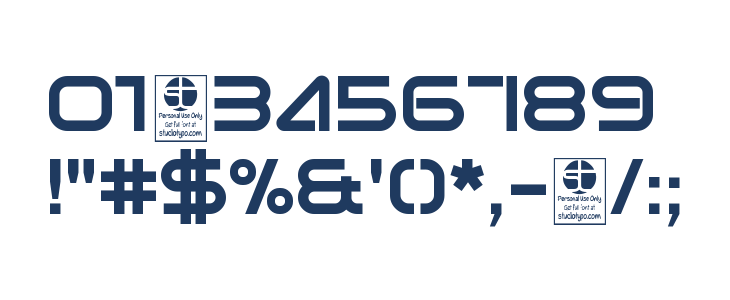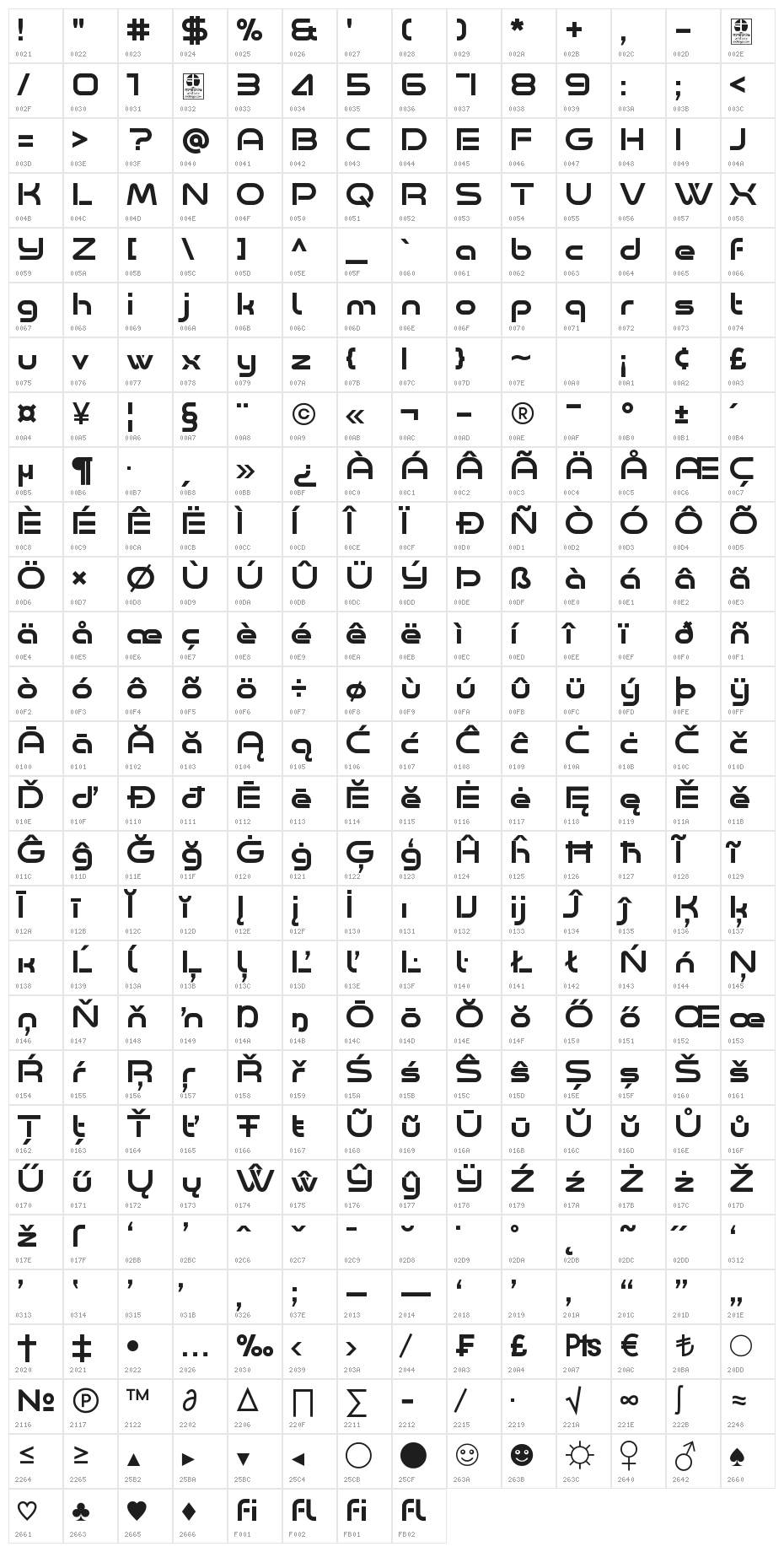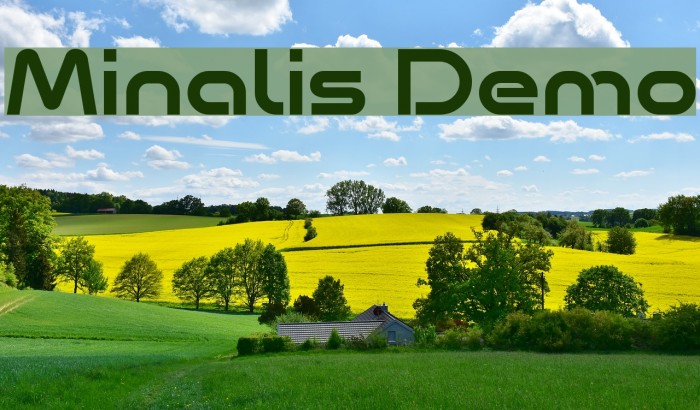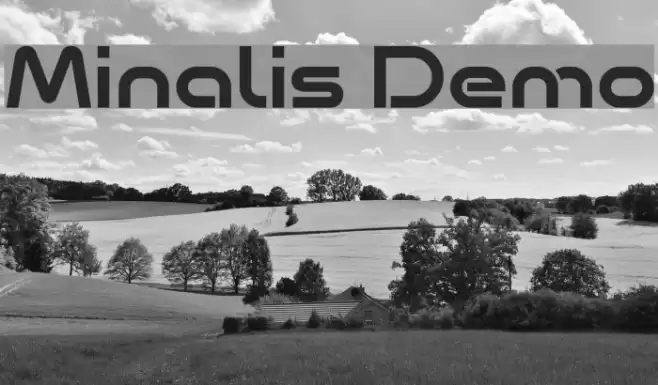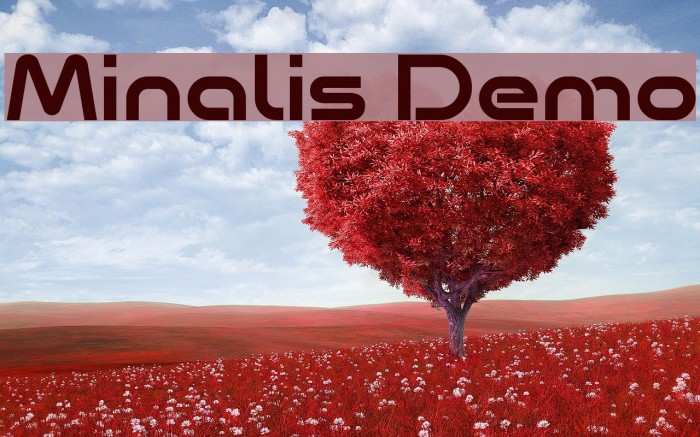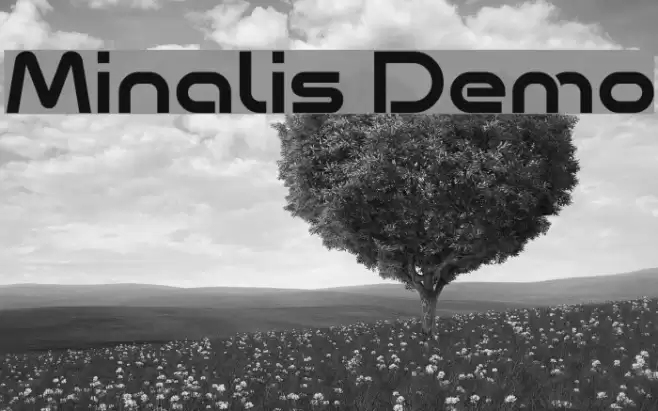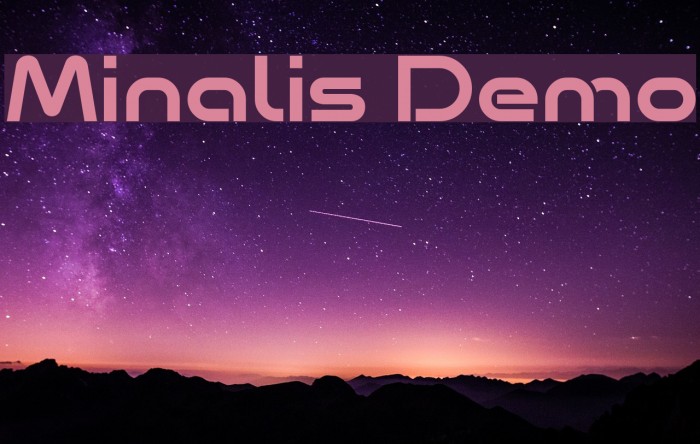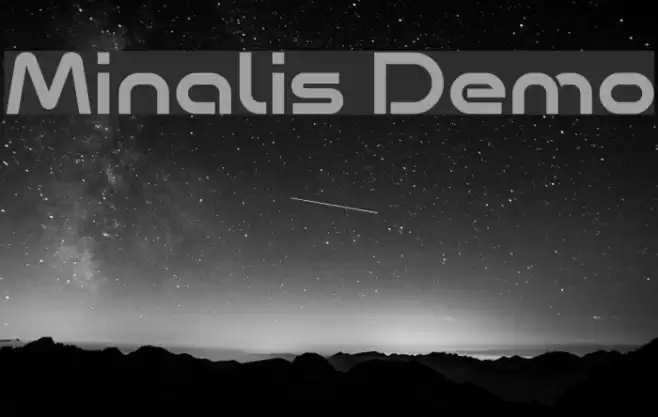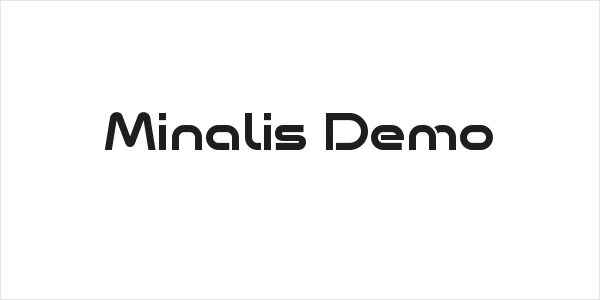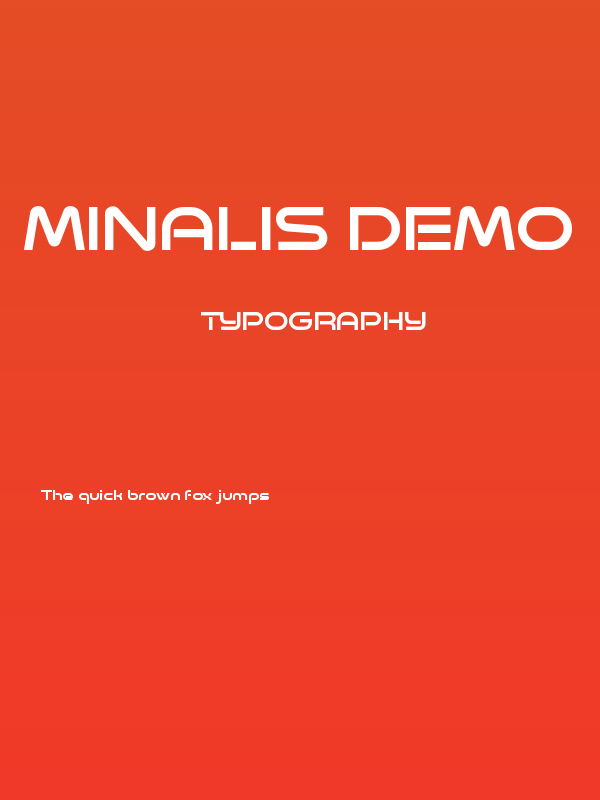
Minalis Demo Font
Minalis Demo Description
This font features a modern and geometric design with clean lines and a futuristic aesthetic. The uppercase and lowercase letters are crafted with a consistent stroke width, giving it a uniform appearance. The characters have a slightly rounded edge, adding a touch of softness to the otherwise sharp and angular design. The numbers and special characters maintain the same stylistic approach, ensuring cohesion across all elements. This font is well-suited for projects that require a contemporary and sleek look, making it ideal for technology-related branding, modern advertising, and digital interfaces.